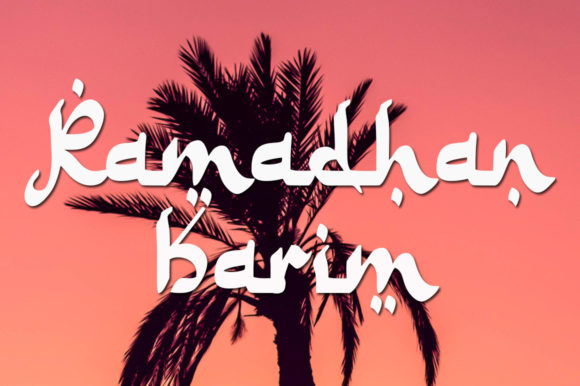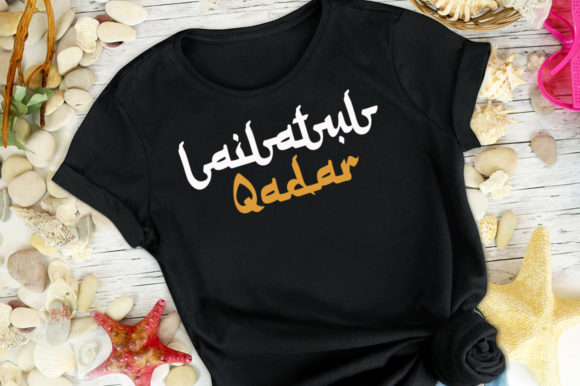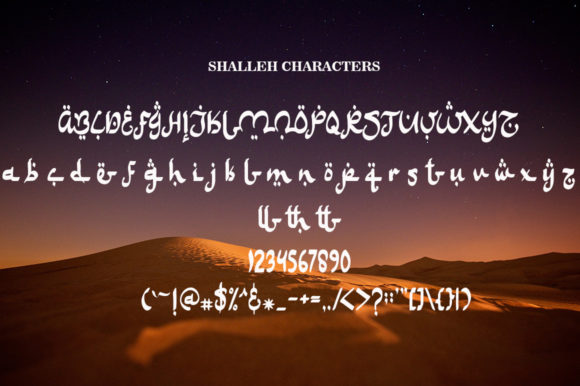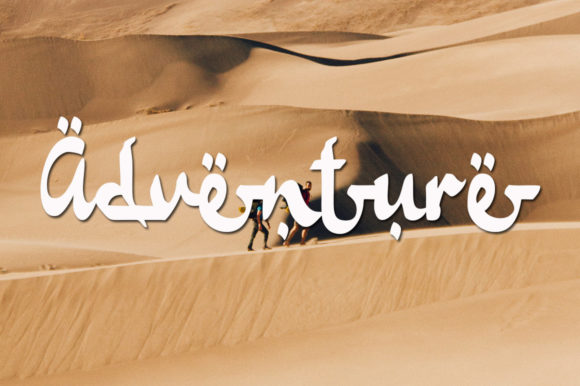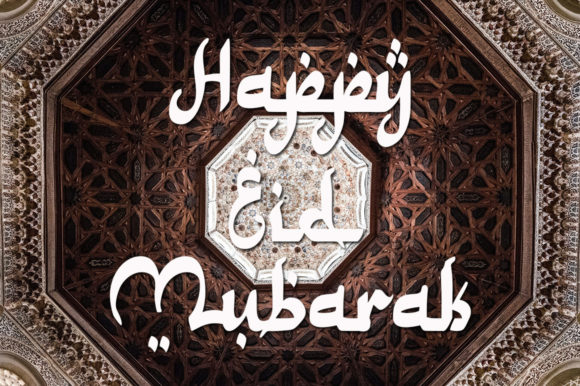
About Shalleh – Arabic Style Font
Shalleh is a bold script font, featuring an Arabic style. Expertly designed to make your creation look out of this world, this font will look gorgeous on a variety of ideas. Shalleh can be used for various purposes such as logos, wedding invitations, headings, t-shirts, letterhead, signage, labels, news, posters, badges and so much more.